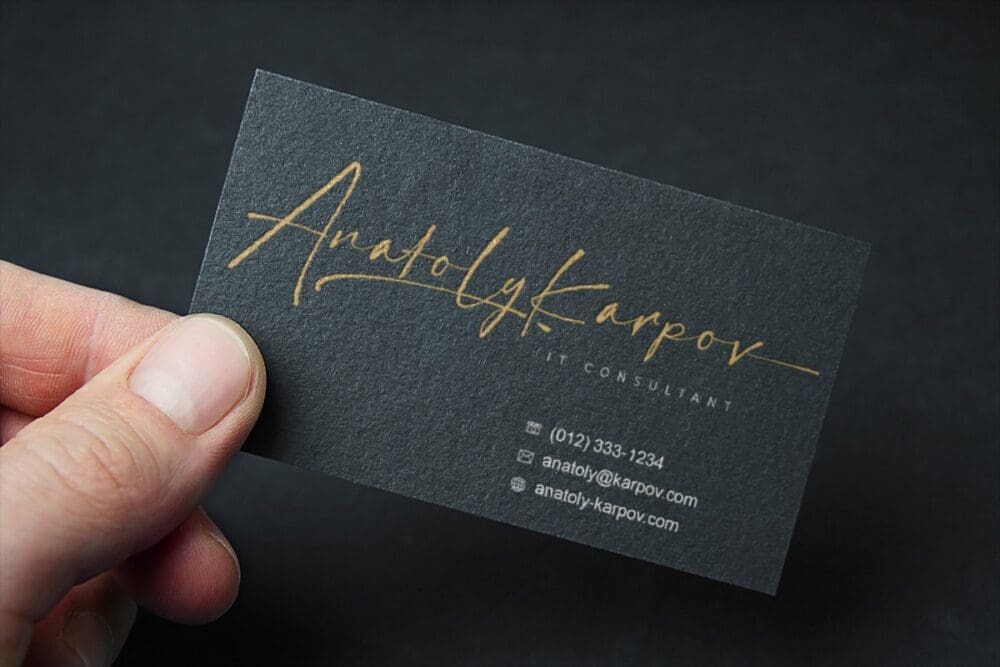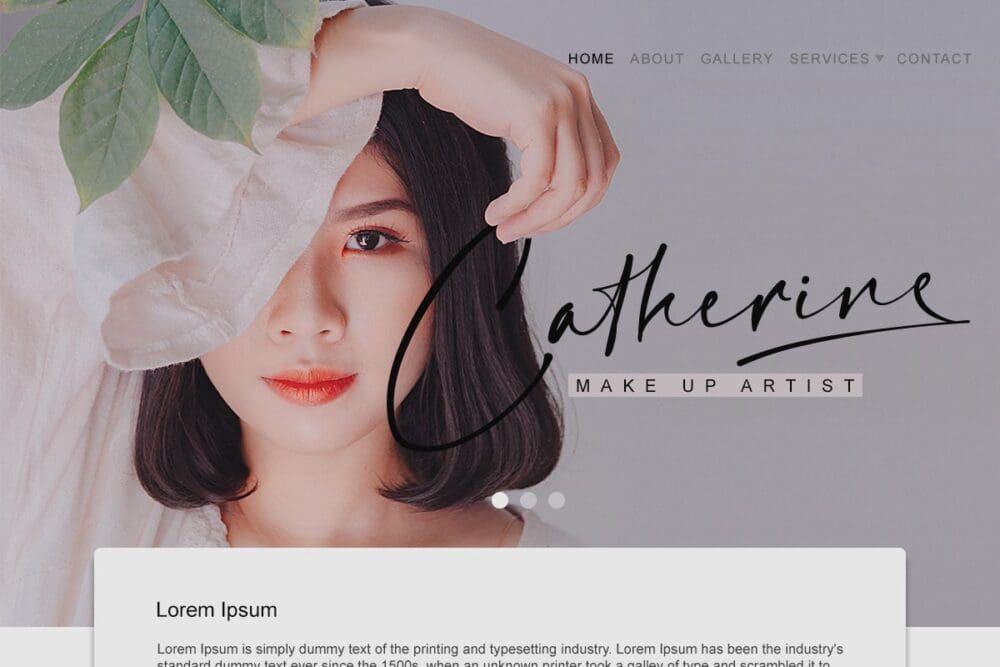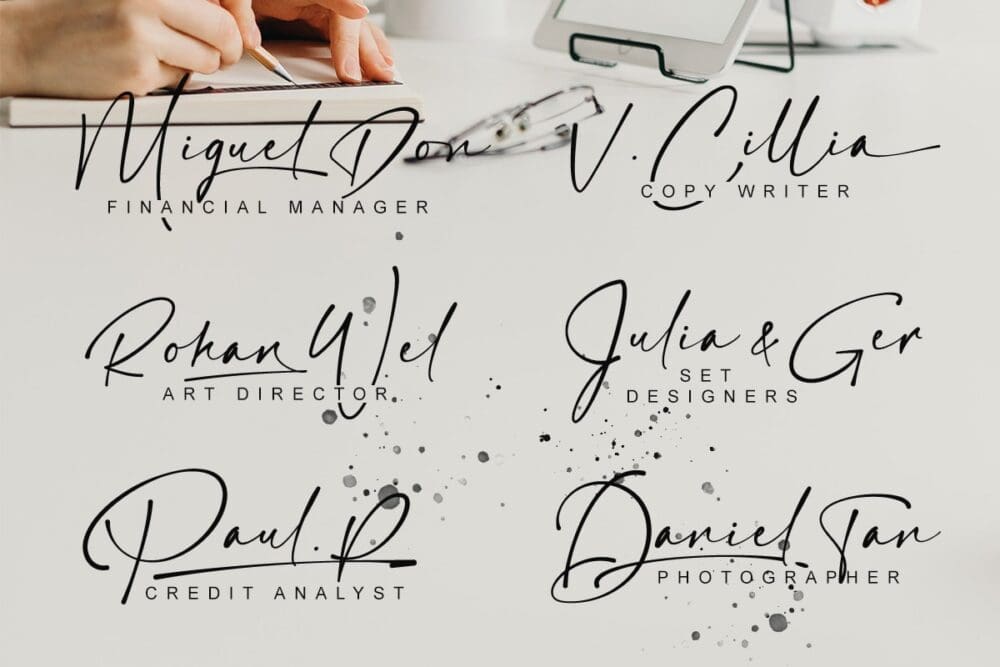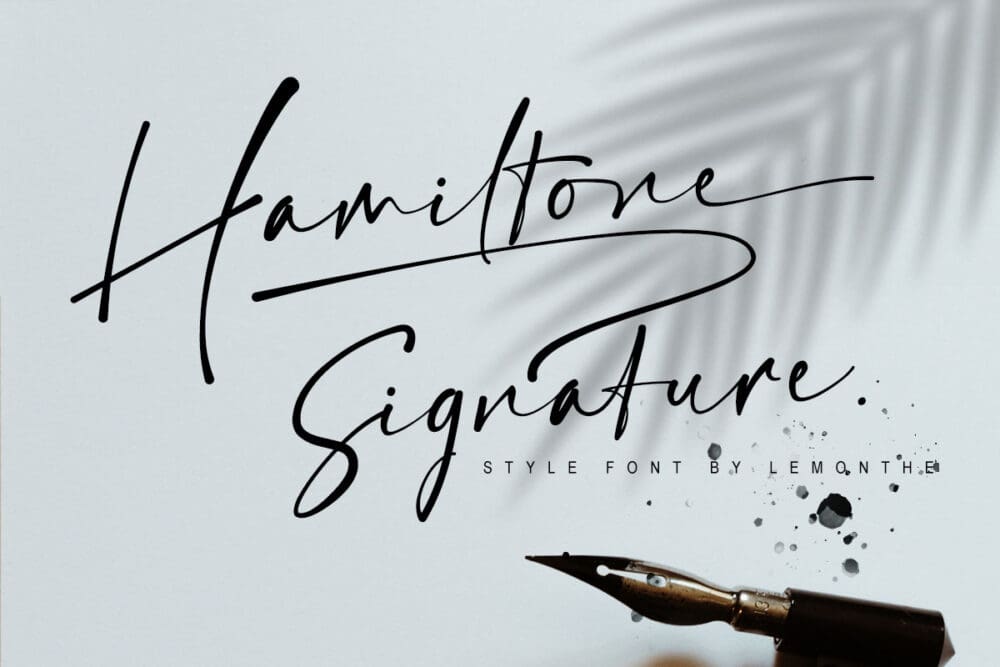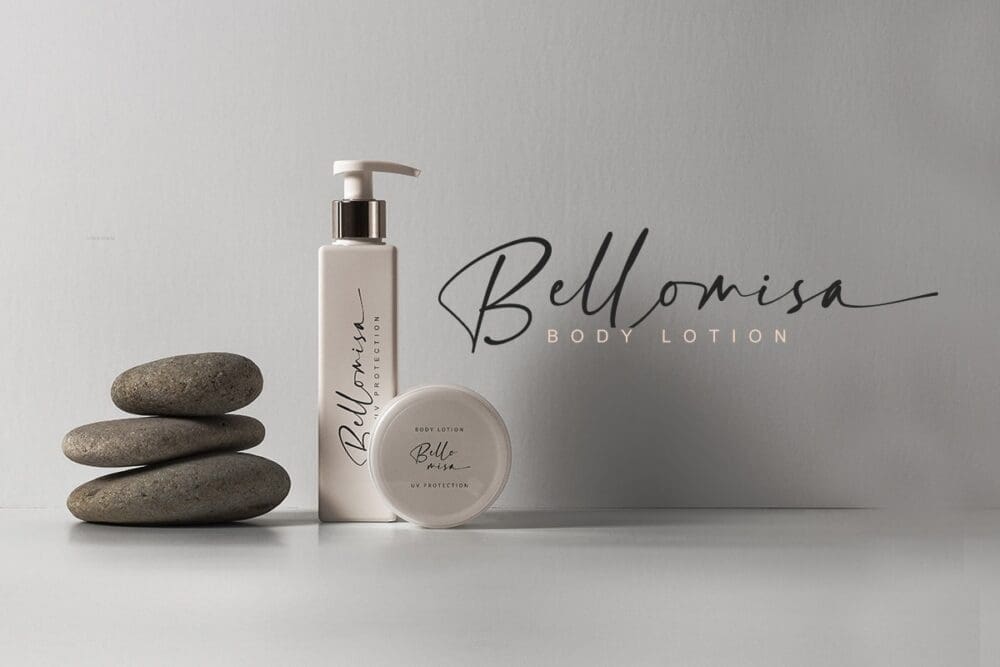
Hamiltone Signature Font
Hamiltone is luxury Signature font. It’s the perfect font for wedding invitations, stationery, photography, social media posts, product packaging, greeting cards, and much more!